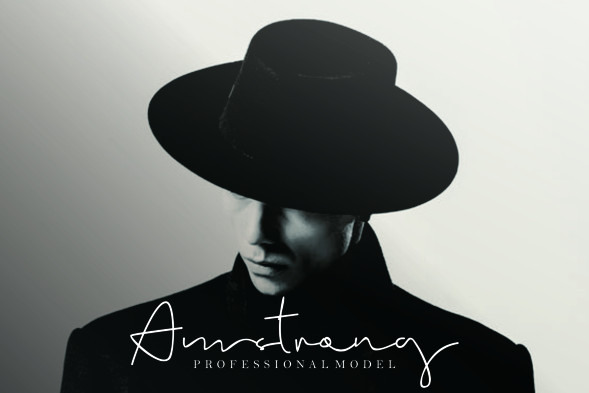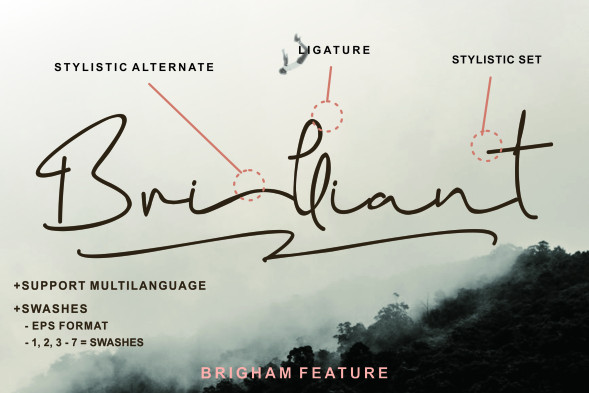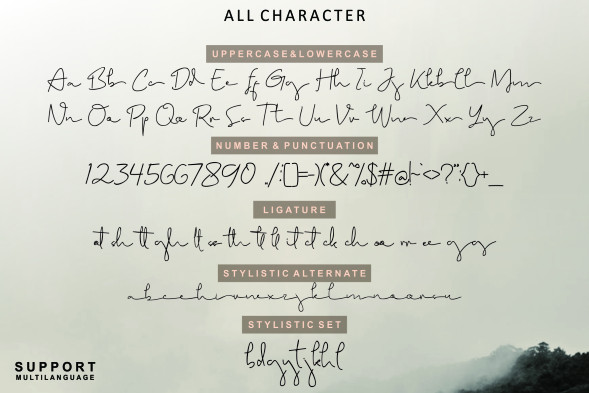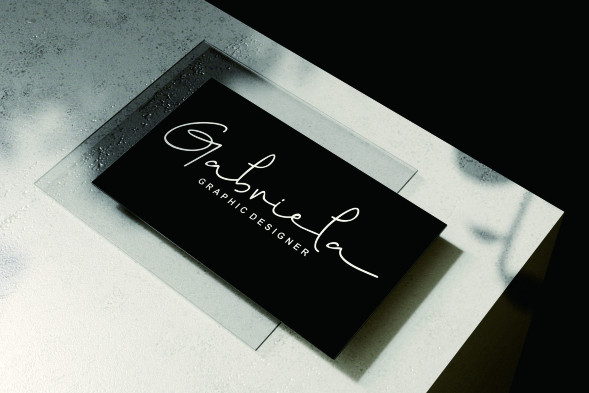
Brigham Signature Font
Brigham Signature is a handwritten signature text with natural flow & style. fonts are luxurious and elegant with natural hand scratches. This signature font is very suitable for personal branding, such as interview, business cards, product logos etc. Brigham Signature Script is perfect for branding projects, logos, wedding designs, social media posts, advertisements, product packaging, product design, labels, photography, watermarks, invitations, stationery and any project that requires a handwritten signature taste.